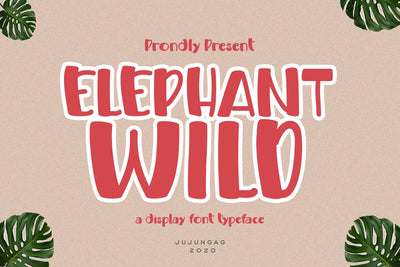
Elephant Wild
Elephant Wild Display Font is a design font with an kid's style that can enhance the quality of your designs.
Elephant Wild Display Font – This Font is perfect for designs, logos, social media, brands, advertisements, product designs, handwritten quotes, product packaging, headers, posters, merchandise, and other designs.